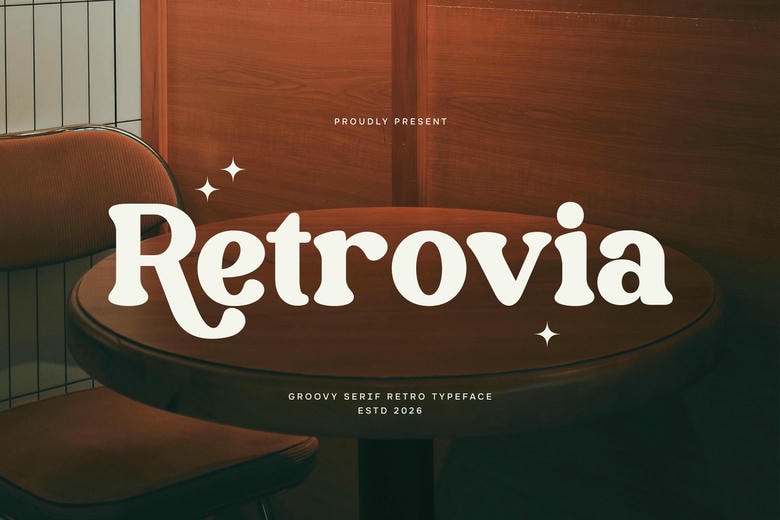
Retrovia Font
Retrovia is a retro groovy serif font that is inspired by the bold and playful typography of the old-school design. With its unique serif forms, rounded edges and an adorable retro attitude and feel, Retrovia adds a vintage yet coolness to any creative work. Its expressive letterforms are a dazzling embodiment of the classic retro style, but it still has a clean and modern touch.
Retrovia Serif Font